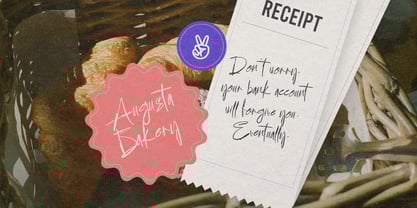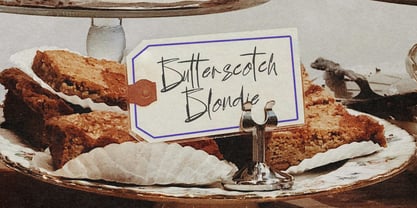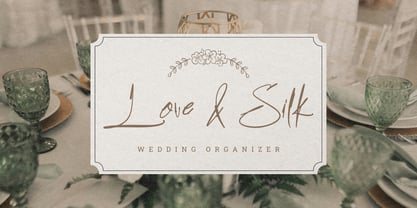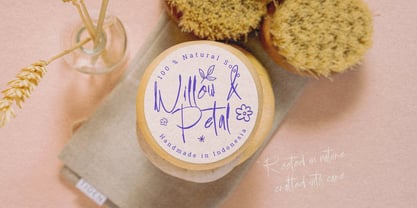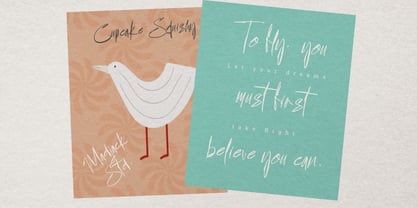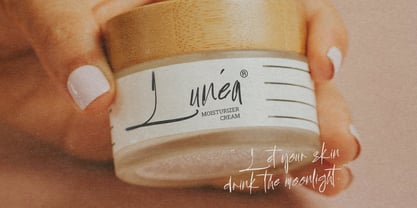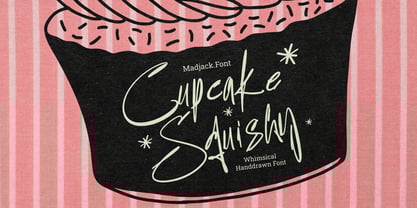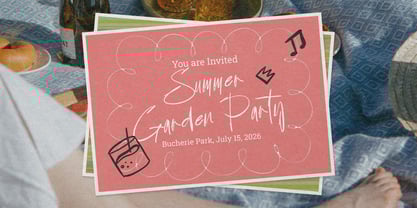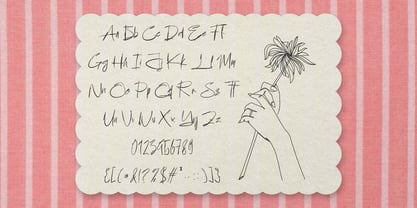
Cupcake Squishy
Die Schriftfamilie Cupcake Squishy wurde von Zaki Muhammad entworfen und von madjack.font veröffentlicht. Cupcake Squishy enthält 1 Stile. Mehr über diese Familie
Cupcake Squishy is a textured brush font, a contemporary design approach, natural handmade with irregular baselines. Suitable for use in title designs such as clothing, invitations, book titles, stationery designs, quotes, branding, logos, greeting cards, t-shirts, packaging designs, posters, and more. Rogshine includes a full set of uppercase and lowercase letters, as well as multilingual support, numbers, punctuation, binders.